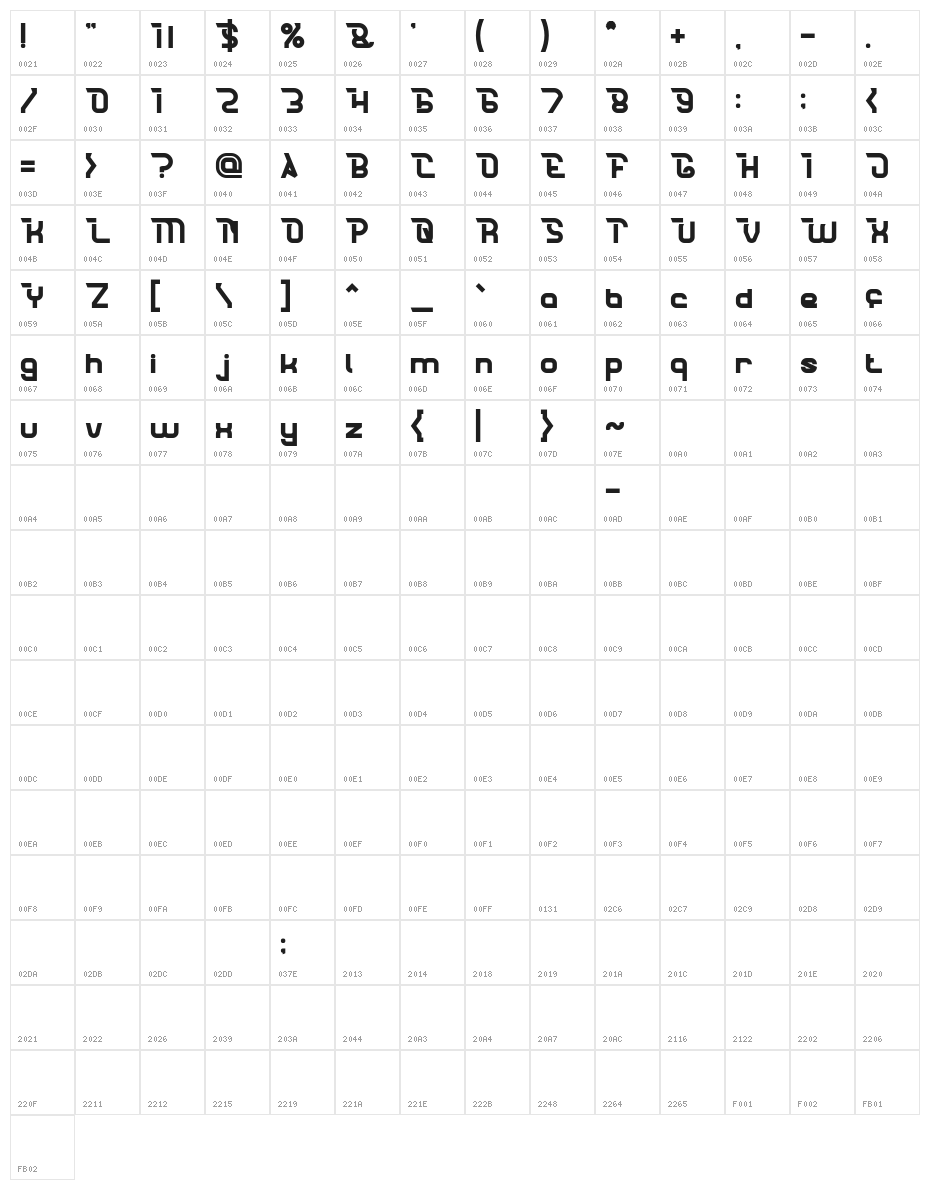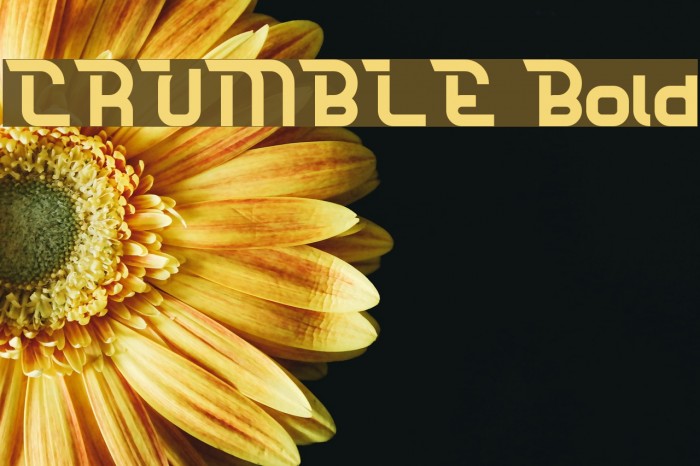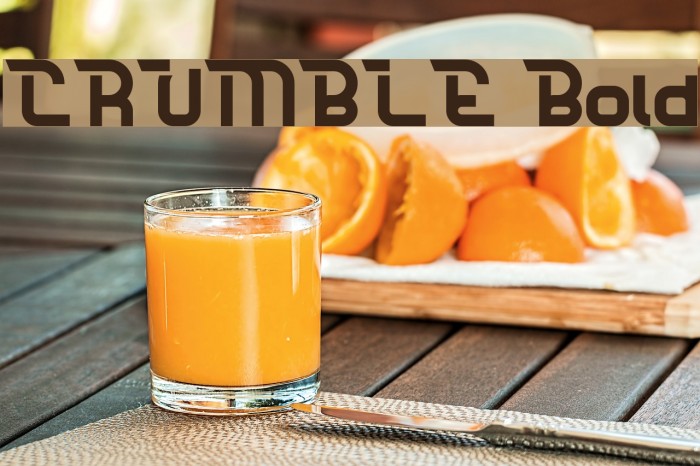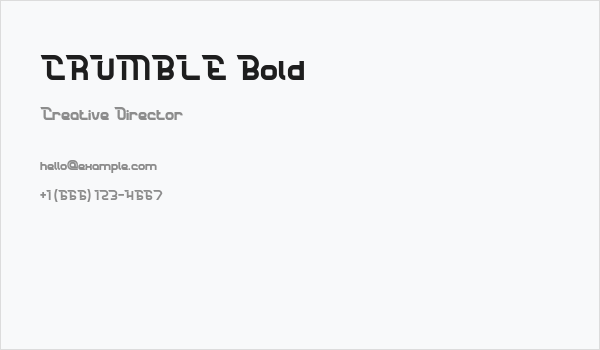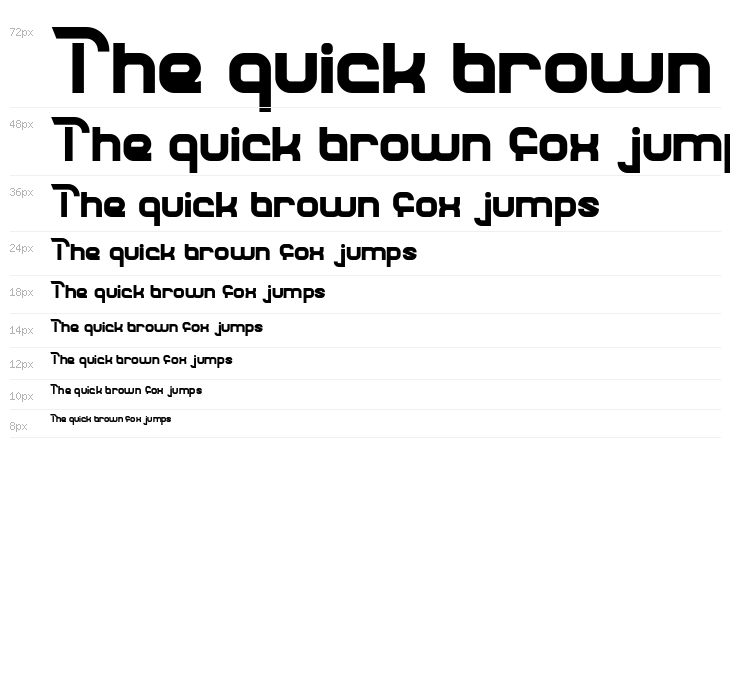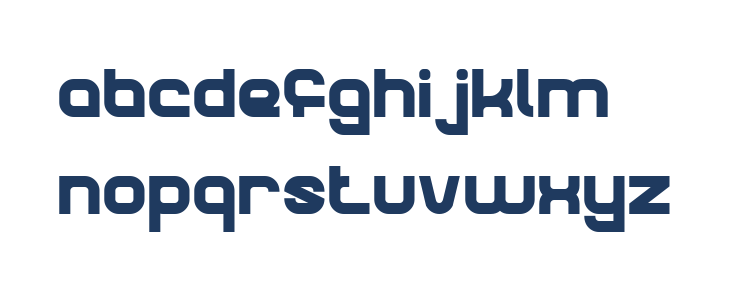
CRUMBLE Bold Font
CRUMBLE Bold Description
This font features a bold and geometric design with a modern twist. The characters are constructed with thick, uniform strokes that create a strong visual impact. The uppercase letters have a distinct, angular appearance with some unique cutouts and curves that add a futuristic feel. The lowercase letters maintain the boldness but with slightly softer edges, providing a nice contrast to the uppercase. The numbers are equally bold and consistent, ensuring readability and style. Special characters are designed to match the overall aesthetic, making this font versatile for various uses.
| Proposed Projects | Ideal for branding, headlines, posters, and digital media projects that require a strong visual presence. |